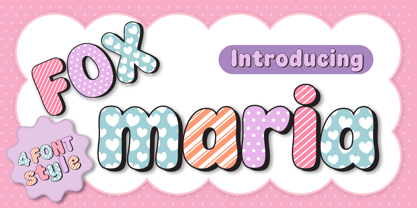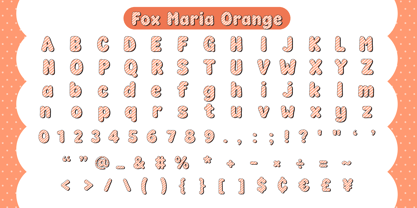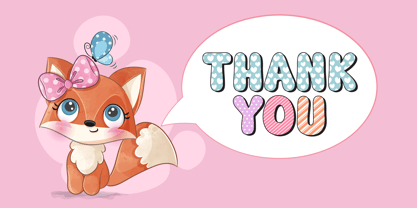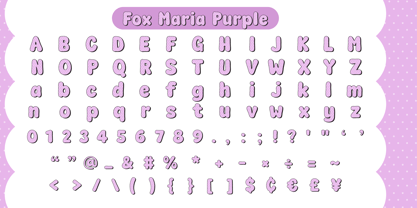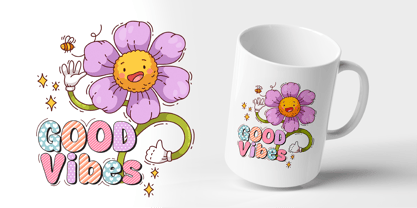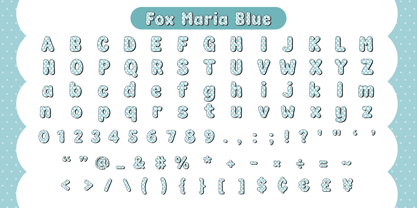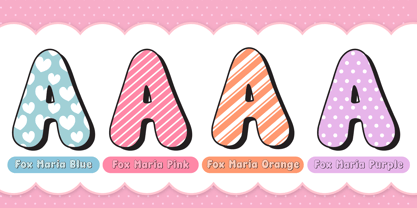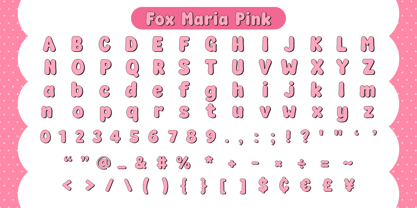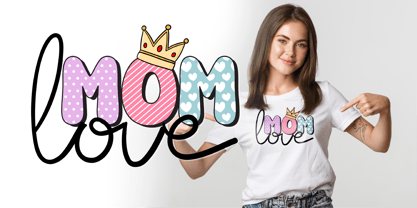
Fox Maria
La familia tipográfica Fox Maria fue diseñada por Rattana Rattanawan y publicada por Fox7. Fox Maria contiene 4 estilos y opciones de paquete familiar. Más información sobre esta familia
Fox Maria is a playful and charming color font that brings your designs to life! Perfect for creative projects, this font offers four unique variations, each with its own vibrant personality:
• Fox Maria Blue: A refreshing blue theme adorned with cute heart patterns, perfect for cheerful and romantic designs.
• Fox Maria Orange: A bright orange style with dynamic diagonal stripes, adding energy and warmth to any project.
• Fox Maria Pink: A sweet pink design featuring diagonal stripes, ideal for creating fun and feminine visuals.
• Fox Maria Purple: A soft purple variant with delightful polka dots, exuding elegance and whimsy.
Whether you're designing for children's projects, invitations, or playful branding, Fox Maria will make your text stand out with its colorful and lively appearance.